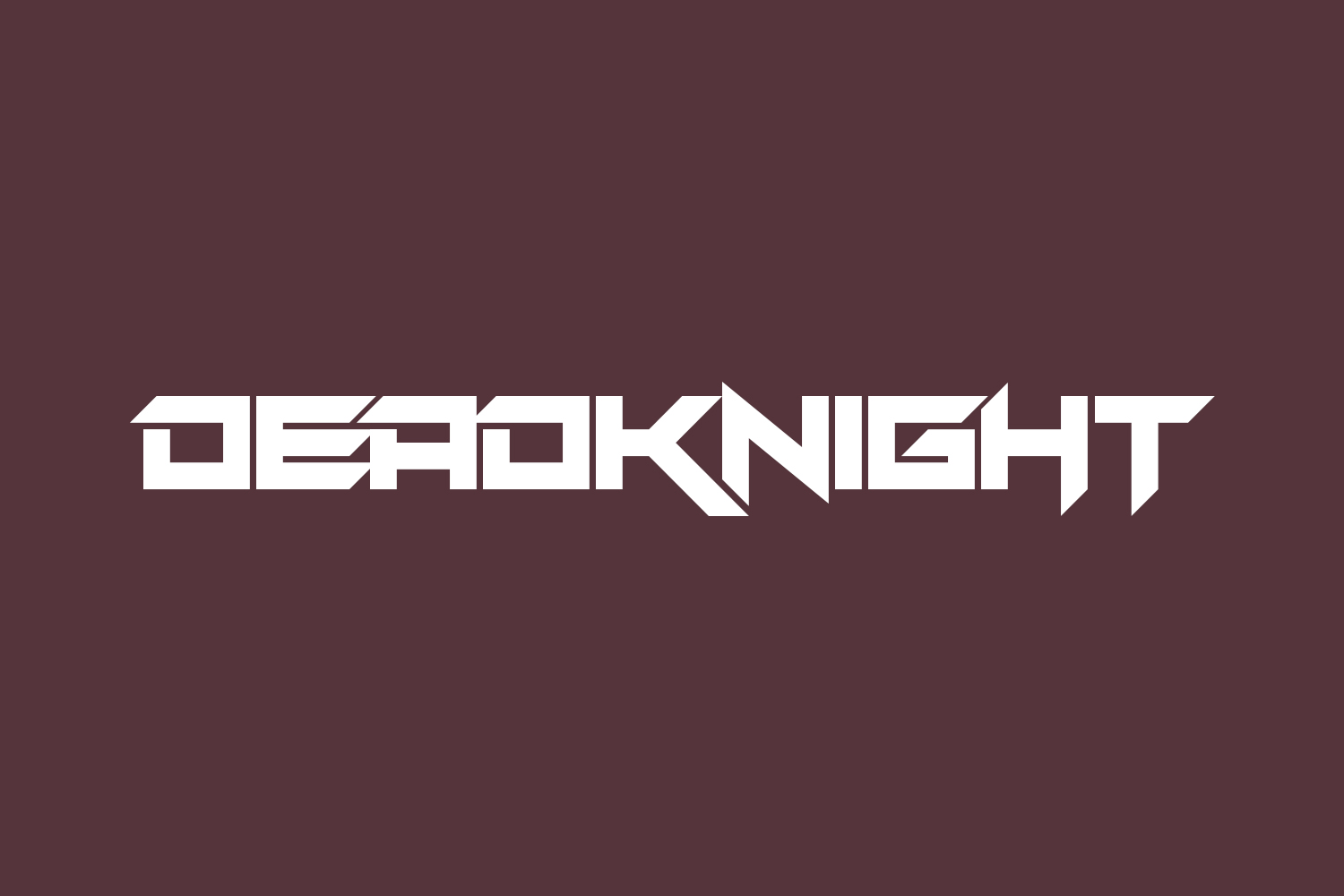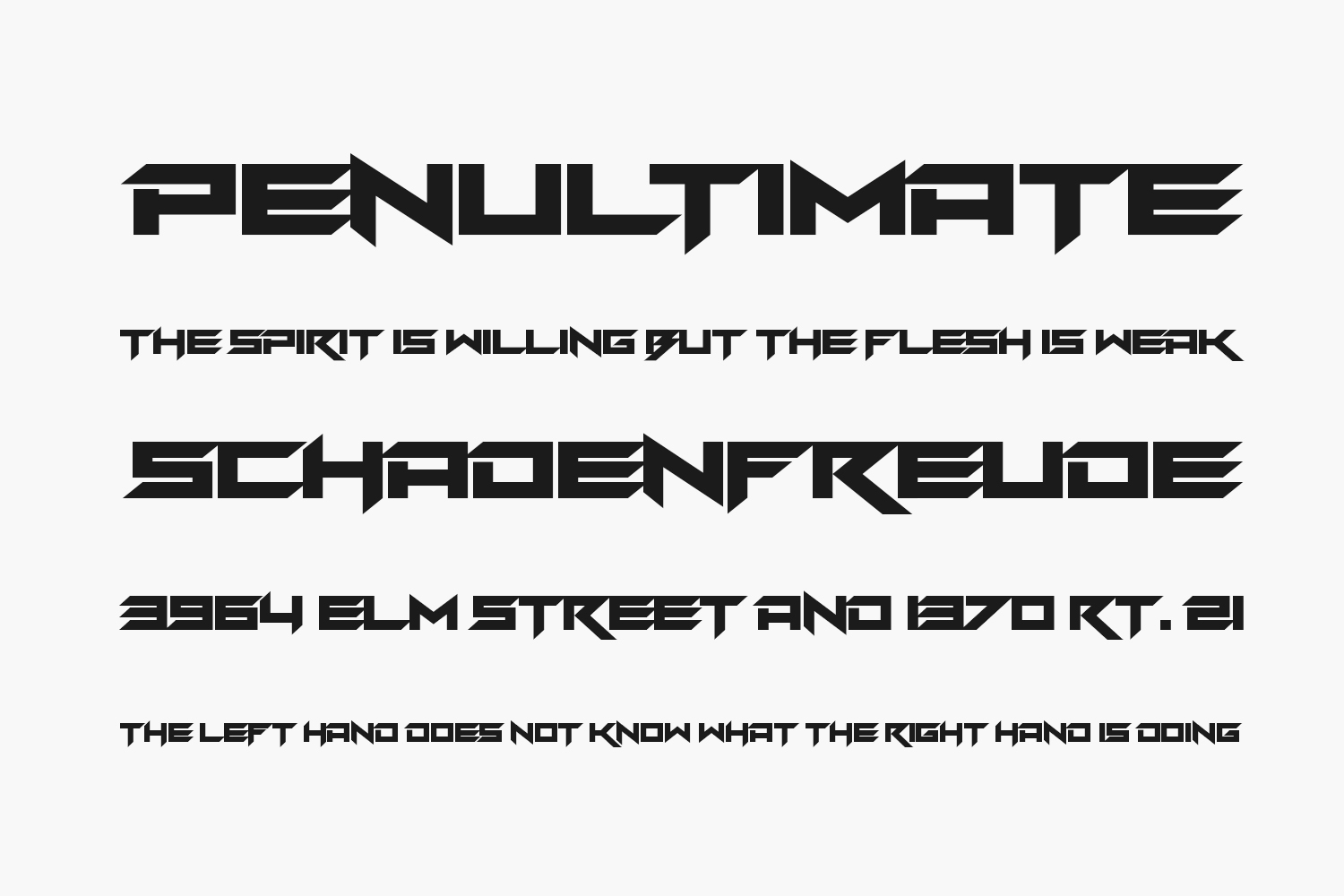
Deadknight Free Font – Bold Gothic Typeface for Dark & Atmospheric Design
Deadknight is a bold, modern gothic display font designed by Chequered Ink to bring dark sophistication and strong visual identity to your creative projects. With its sharp angles, clean lines, and commanding presence, this free decorative typeface works perfectly for crafting dramatic logos, movie posters, game titles, branding materials, and more. Available in OTF format — ideal for designers seeking a powerful, atmospheric font that blends classic gothic style with contemporary clarity.
Why Choose Deadknight?
- Bold Gothic Style: Combines sleek structure with strong vertical strokes for a mysterious yet refined appearance.
- Ideal for Dark Visuals: Perfect for horror branding, fantasy games, event posters, or edgy fashion labels needing intensity.
Where to Use Deadknight?
Deadknight shines across a variety of creative applications:
- Logos & Branding: Adds strength to brand identities for underground music labels, tattoo studios, or action-oriented brands needing attitude.
- Gaming & Movie Titles: Perfect for video game names, horror movie covers, or fantasy-themed visuals requiring bold presence.
- Poster Design: Designed for high visibility — makes headlines pop in concert flyers or event banners.
- Social Media Graphics: Creates bold text overlays for TikTok videos, Instagram Stories, or YouTube thumbnails with a gritty tone.
- Packaging Design: Enhances product tags on novelty items, stickers, or lifestyle goods needing a dark edge.
Design Tips with Deadknight